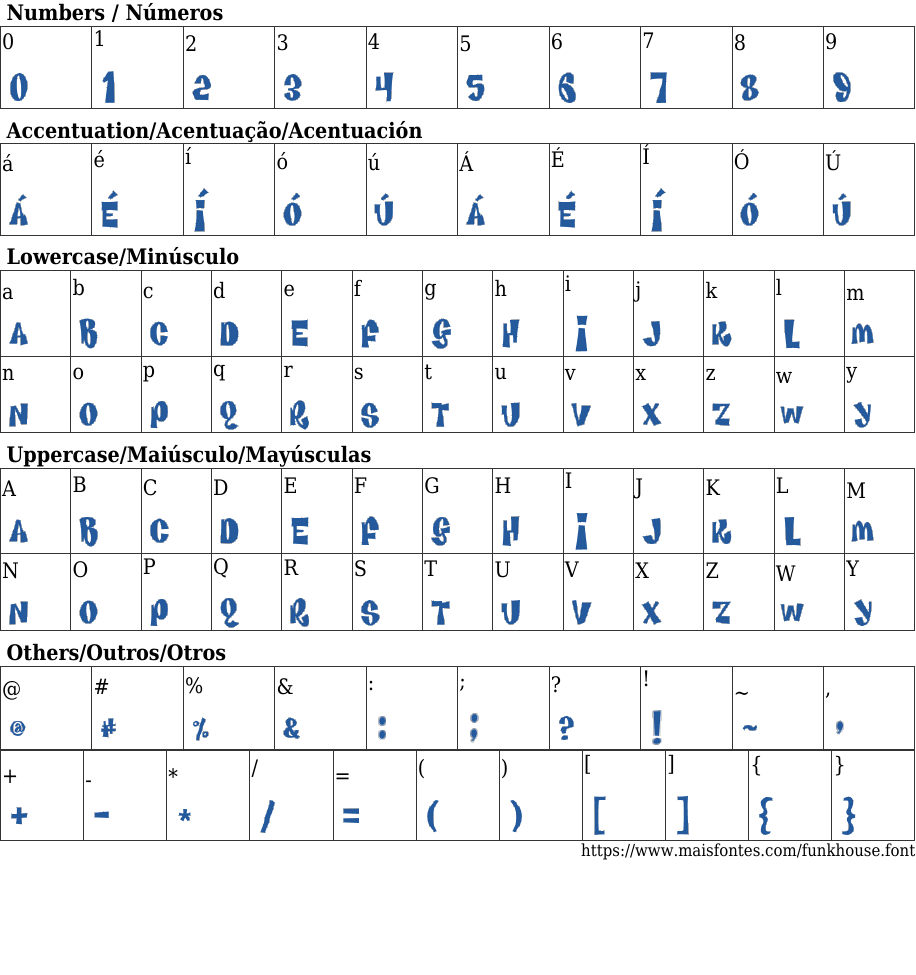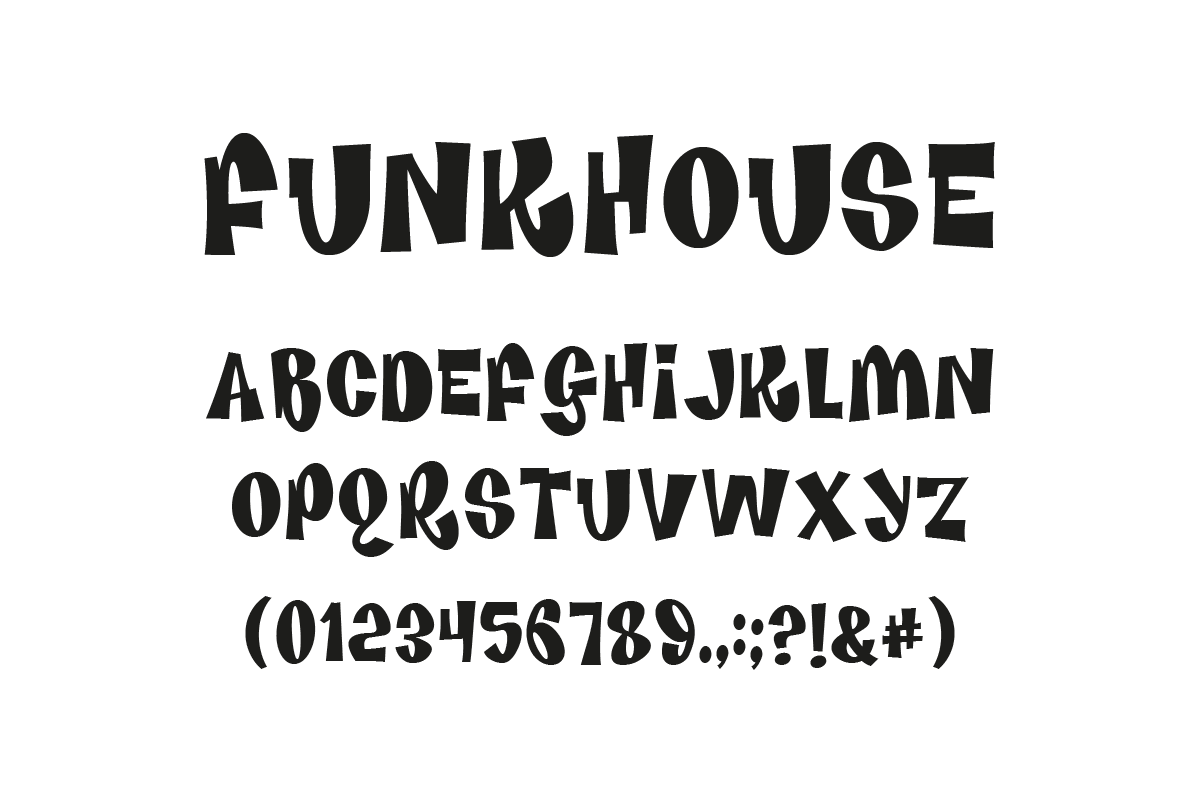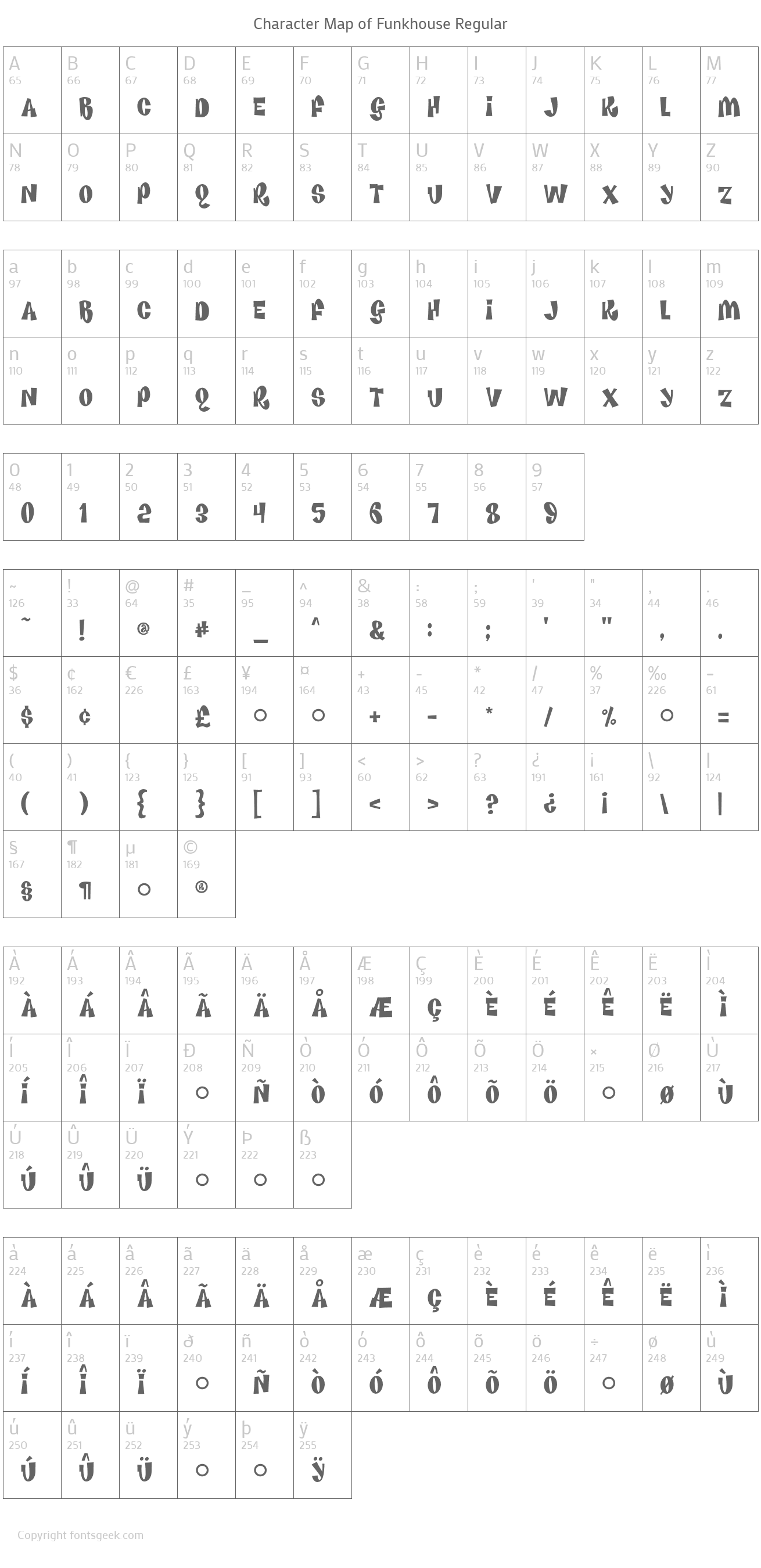
Alive Male GreenBlue Number 139 in Funkhouse Font by HorsiesFanatic on Funk House Font The funkhouse font contains 245 beautifully designed characters. The font subfamily is regular. Funkhous.ttf windows and mac os x compatible. ️ customize your own preview on ffonts.net to make sure it`s the right one for your designs. Download free fonts for windows and macintosh. Funkhouse is the perfect font for all your fun designs. Please use the pulldown menu to. Funk House Font.
Bratz Font Free Download Fonts Bee Funk House Font Funkhous.ttf windows and mac os x compatible. Groovy) font, perfect for creative projects. Download the funkhouse (category fancy : ️ customize your own preview on ffonts.net to make sure it`s the right one for your designs. The font subfamily is regular. View font details, character map, custom preview, downloads, file contents and more. Fonts2u offers a large collection of free. Funk House Font.
Identifont Funkhouse Funk House Font The funkhouse font contains 245 beautifully designed characters. The font subfamily is regular. Please use the pulldown menu to view different character maps contained in this font. ️ customize your own preview on ffonts.net to make sure it`s the right one for your designs. Fonts2u offers a large collection of free fonts. Truetype and opentype fonts available. View font details,. Funk House Font.